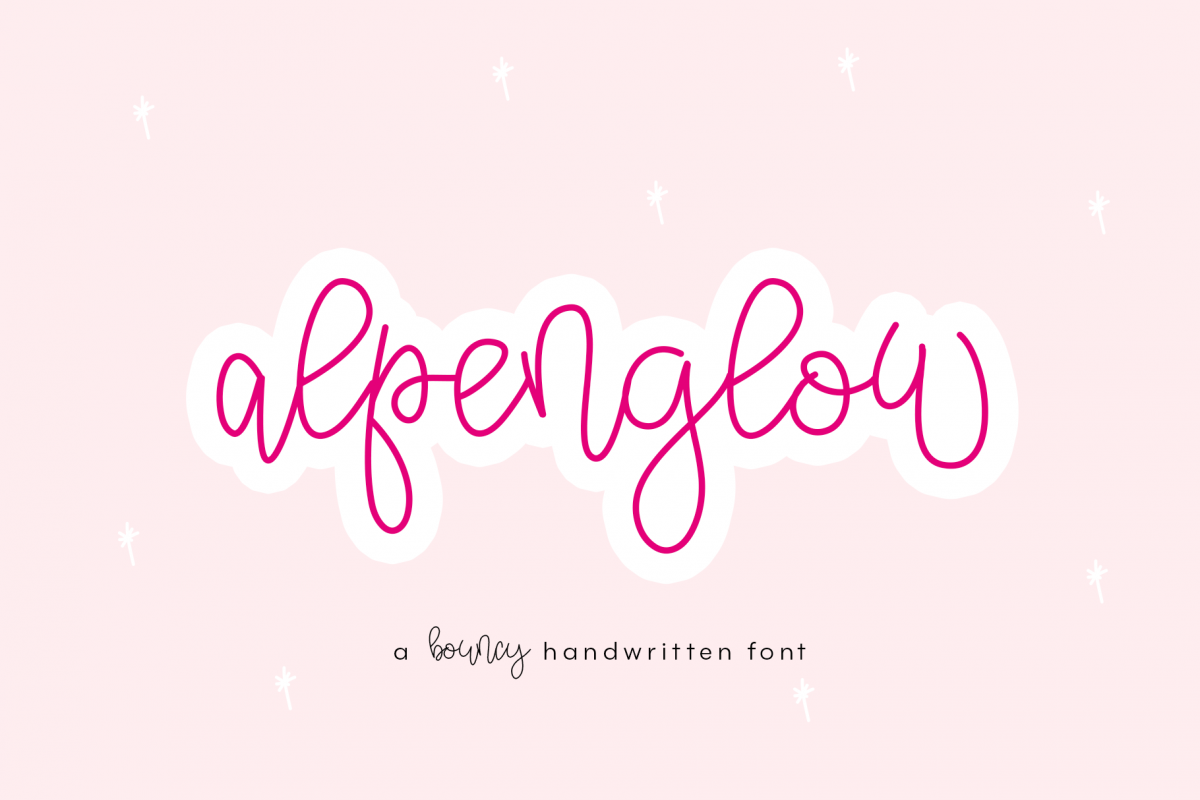
Alpenglow - Bouncy Script Font
Alpenglow is a handwritten, bouncy script font.
This font is perfect for quotes, headings, blogs, logos and invitations.
This font does include accent characters